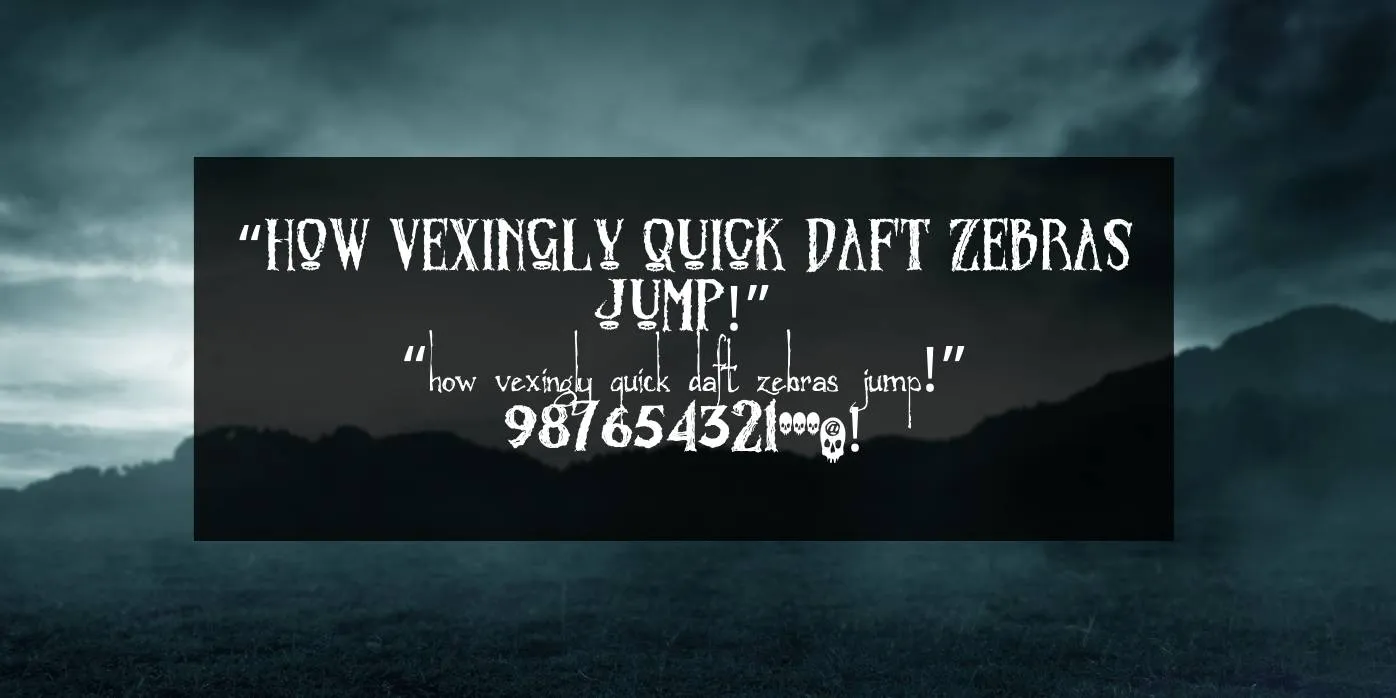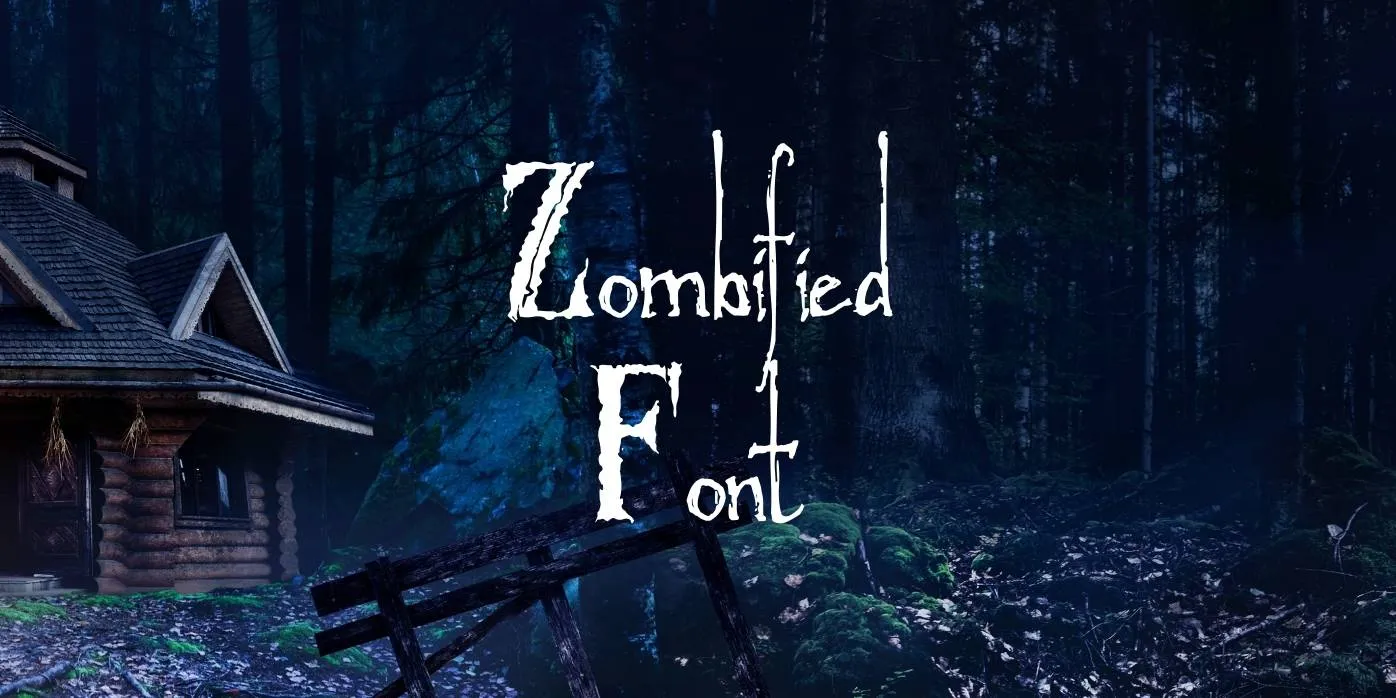
Zombified Font
Zombified Font is a modern typeface that was designed by Sinister Visions. This family belongs to the fancy fonts. The most important thing about a fancy font is that it must be readable. Zombified Font was created with this purpose in mind.
Some of the features of this typeface are it Comes in two styles Regular and Italic. It contains over 250 characters like symbols, icons, and others. It also includes 6 different sets of Zombie skin tones. This typeface supports different international languages.
This gorgeous typeface has advanced features like Contextual Alternates, Stylistic Sets, and Swash. Zombified Font is an excellent choice for horror movie posters, game titles, comic books, and web designing.